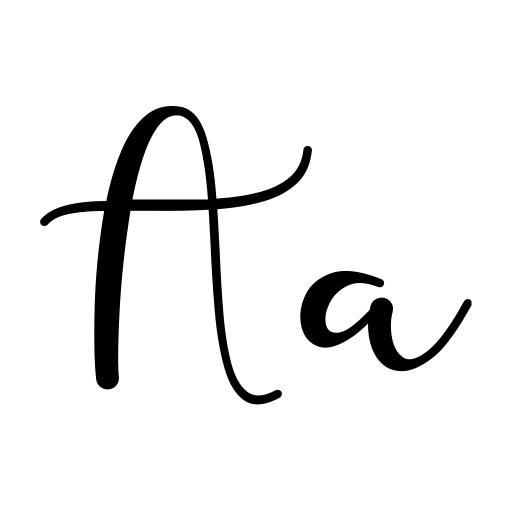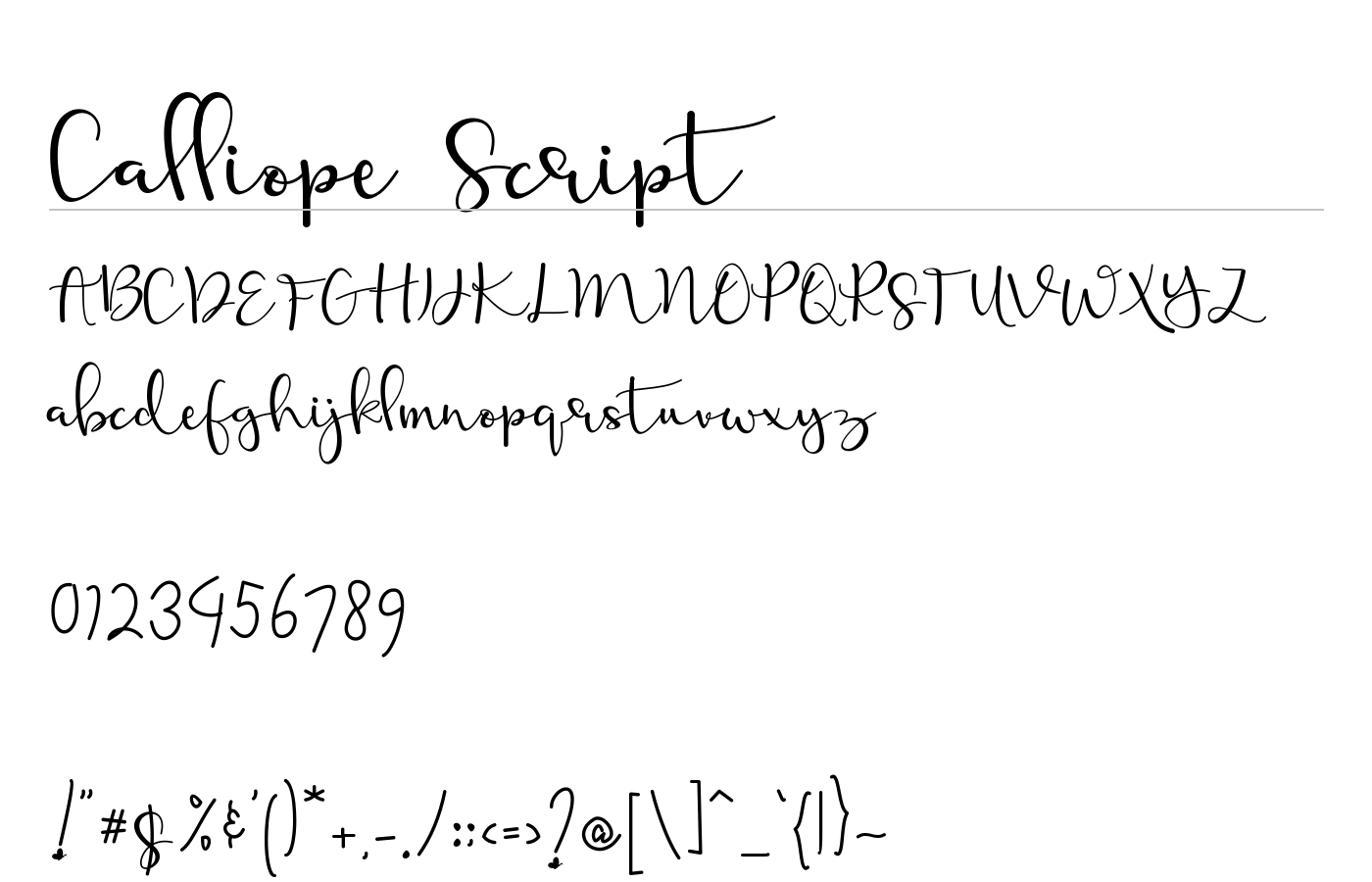
Calliope Script is a delicate, handwritten script font featuring slender, flowing letterforms with a casual and elegant touch. Its smooth, airy strokes and playful loops make it ideal for creative projects that seek warmth and charm, such as invitations, branding, and lifestyle websites. This font’s light weight and refined style lend a friendly yet sophisticated feel perfect for personal and artistic expressions.
Calliope Script Font
About Calliope Script Font
| Font family | Calliope Script Font |
| Designer | Tiny Hand Letter 2020 |